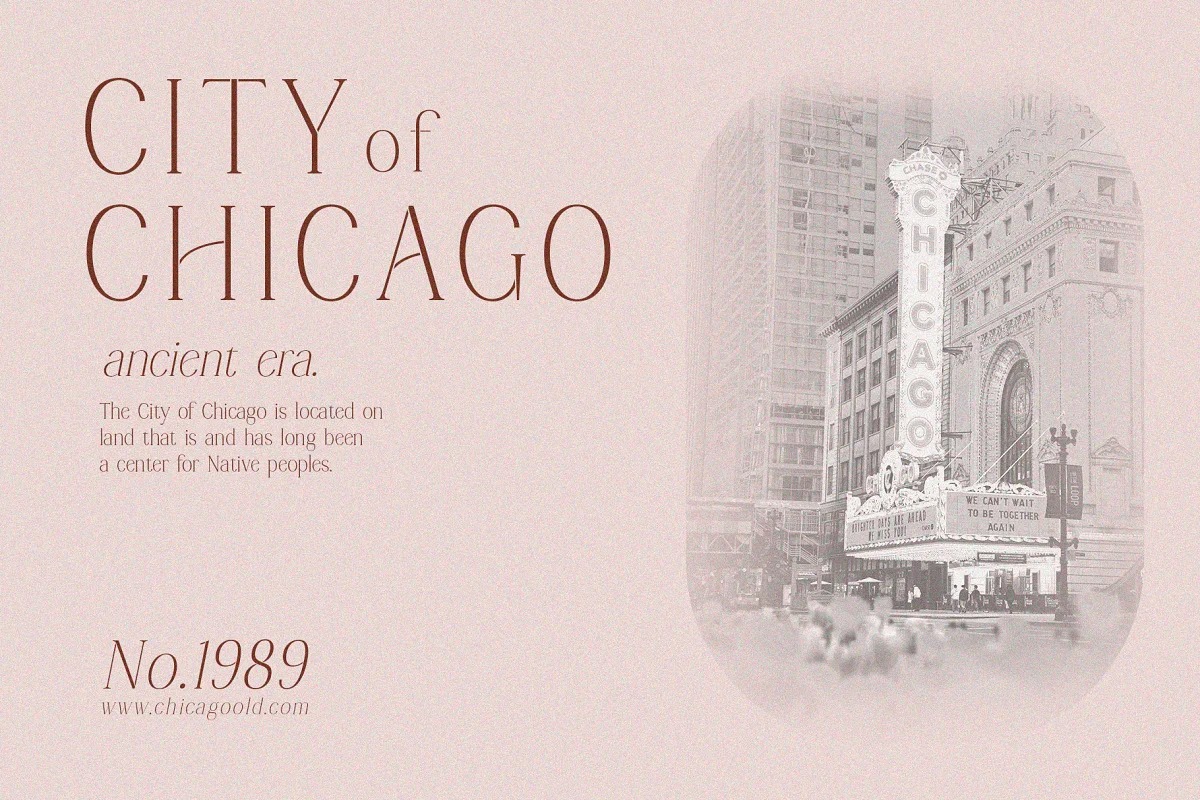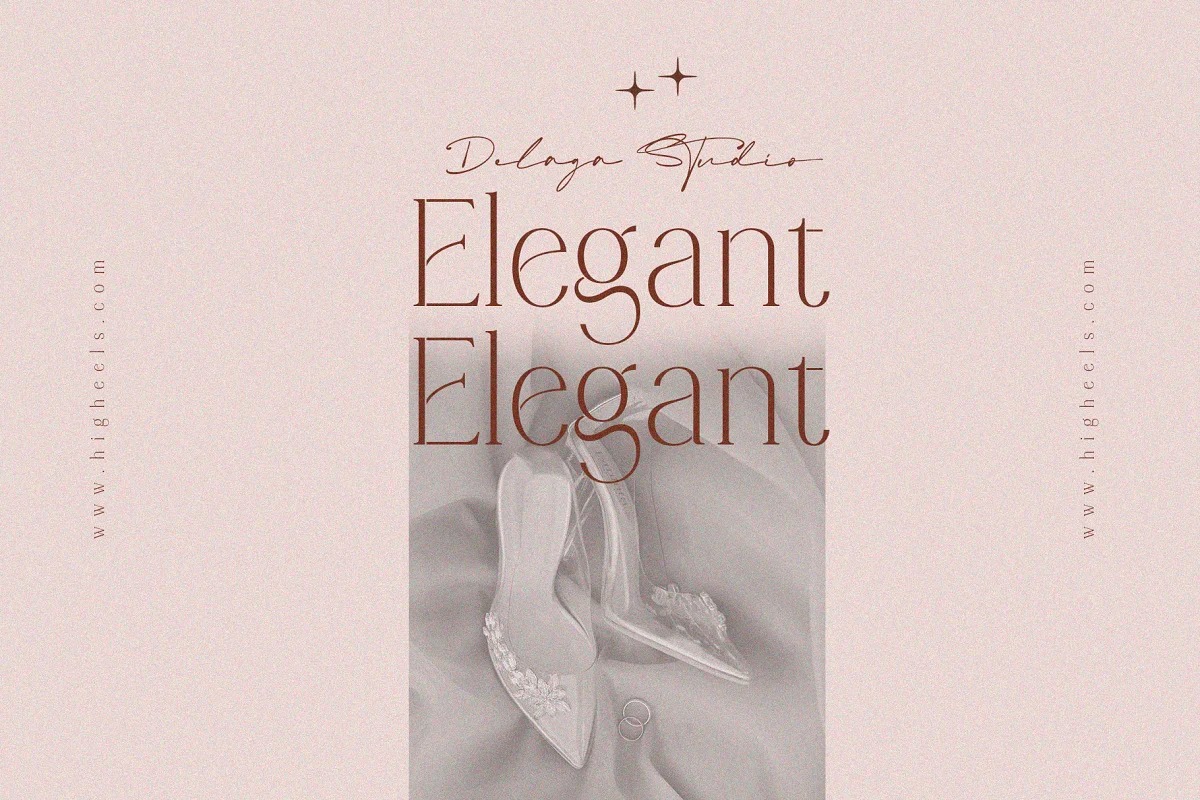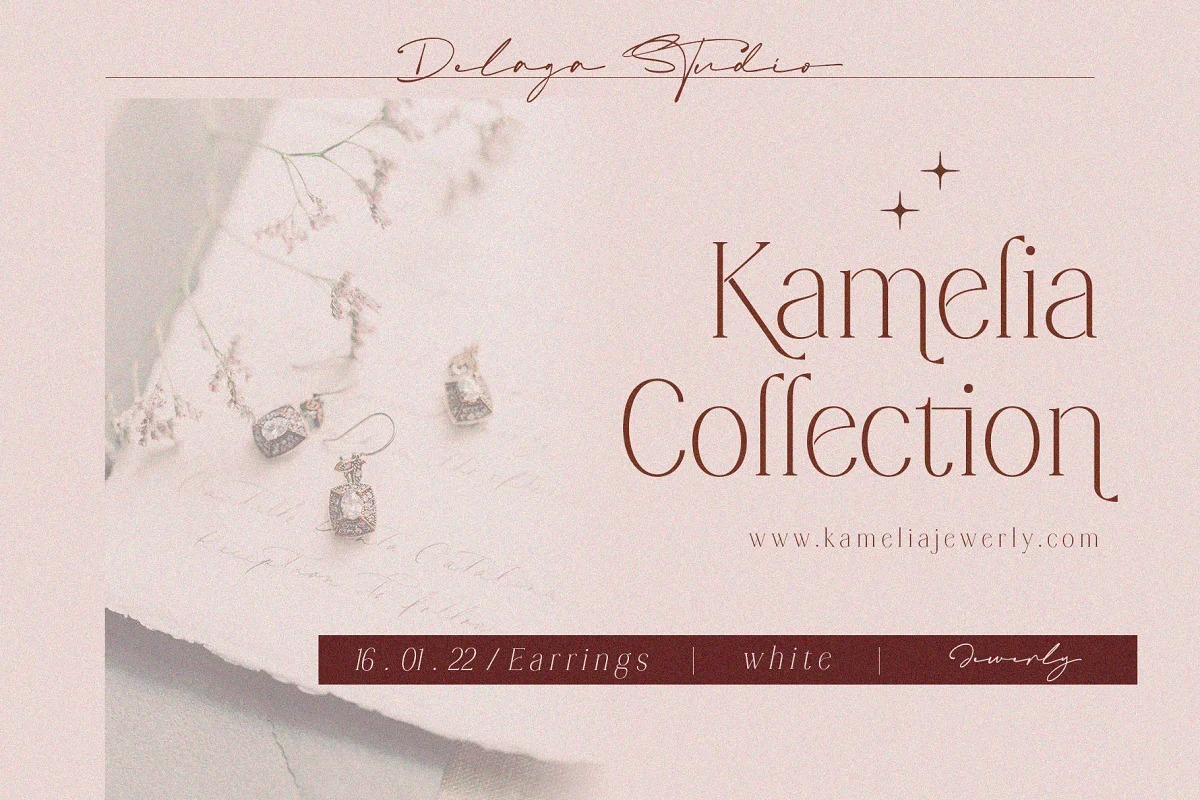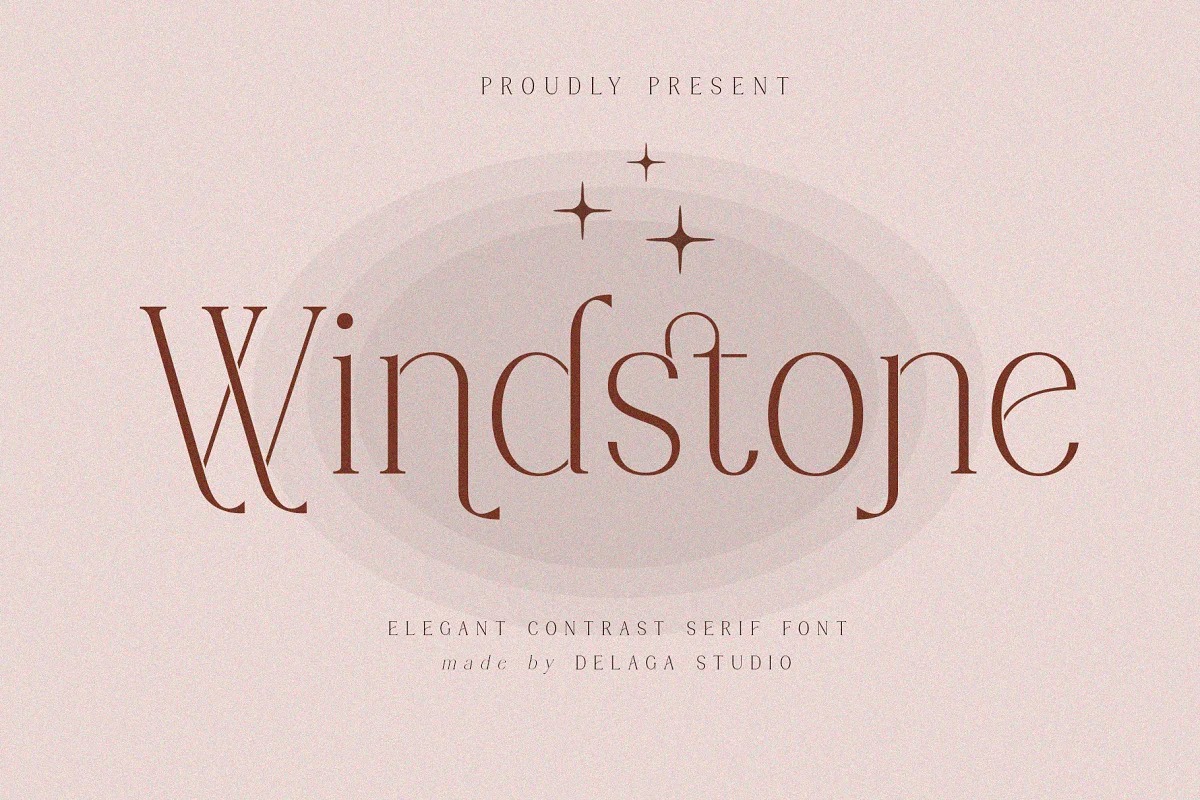
Windstone Serif Font
This is a minimal and modern serif typeface created by Delaga Studio with beautiful ligatures, tons of special alternative glyphs, ornament, and multilingual support. It’s a very versatile font that works great in large and small sizes. Elegant Karin is perfect for branding projects, Logo design, Clothing Branding, product packaging, magazine headers, or simply as a stylish text overlay to any background image.